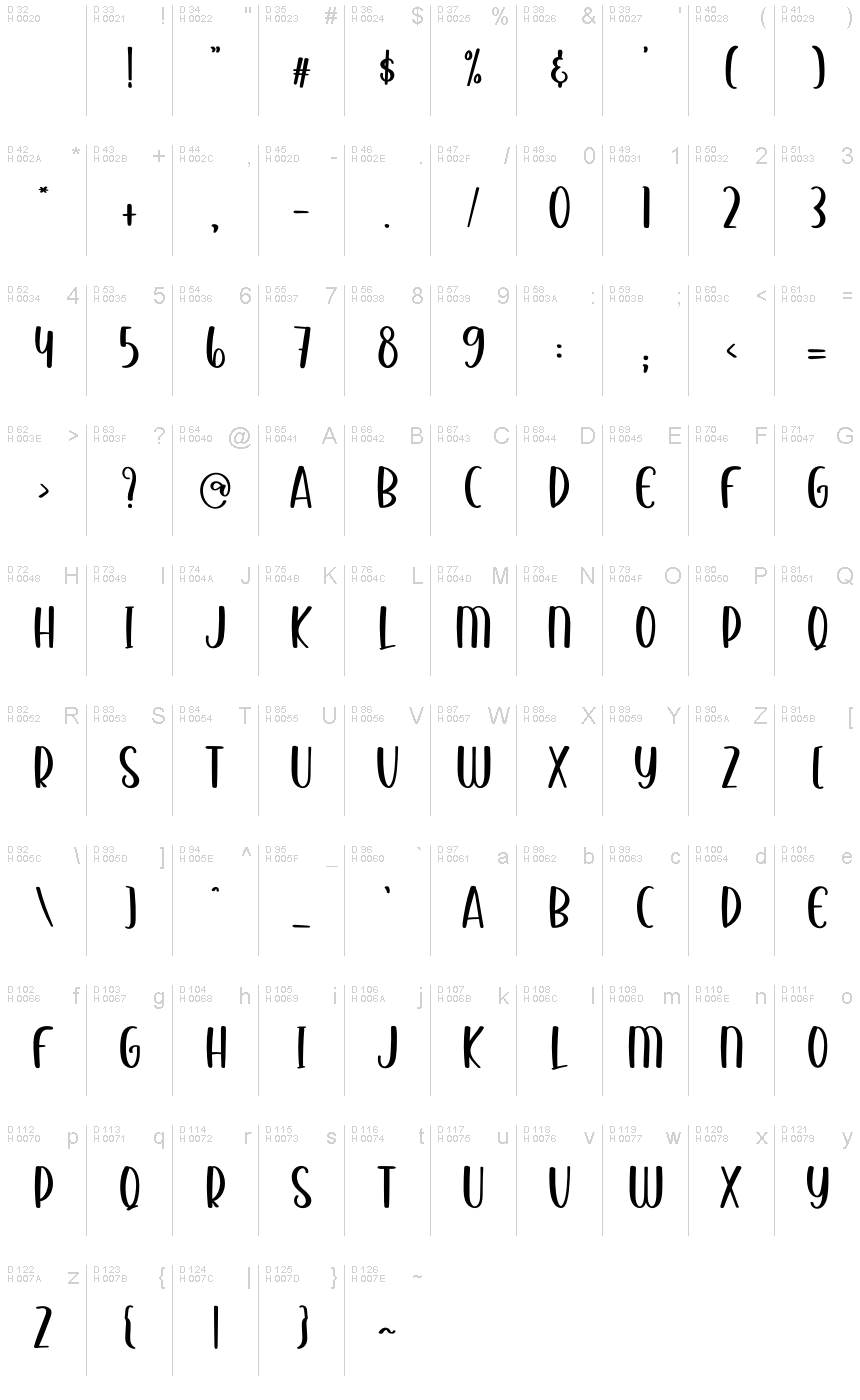
Friendly Hearts
Friendly Hearts font, designed by PiPi Creative, radiates warmth and charm with its handwritten style. The condensed form lends an intimate touch, making every letter appear effortlessly crafted. Its playful loops and whimsical curves evoke a sense of friendliness that invites engagement and connection.
This font's delightful aesthetic makes it perfect for designs that seek to convey personality—be it in invitations, children’s products, or social media graphics. Its distinctive character brings a lively spirit to branding efforts aimed at youthful or creative audiences. Emphasizing joy and approachability, Friendly Hearts is a versatile choice for anyone looking to add a cheerful flair to their visual communications.